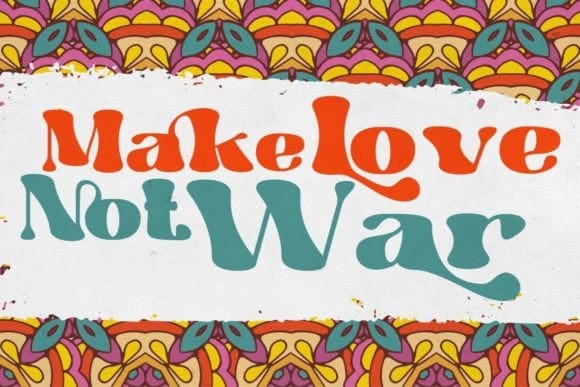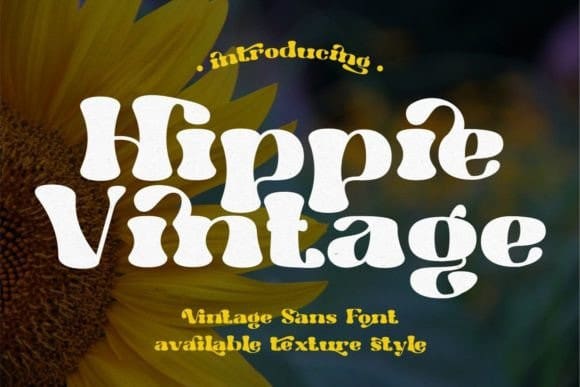
Hippie Vintage Font
Hippie Vintage Font is a bold, groovy, vintage-style display font. With its funky, retro feel, this font is perfect for all your hippie-inspired designs. HippieVintage is PUA encoded which means you can access all the glyphs and ligatures with ease!